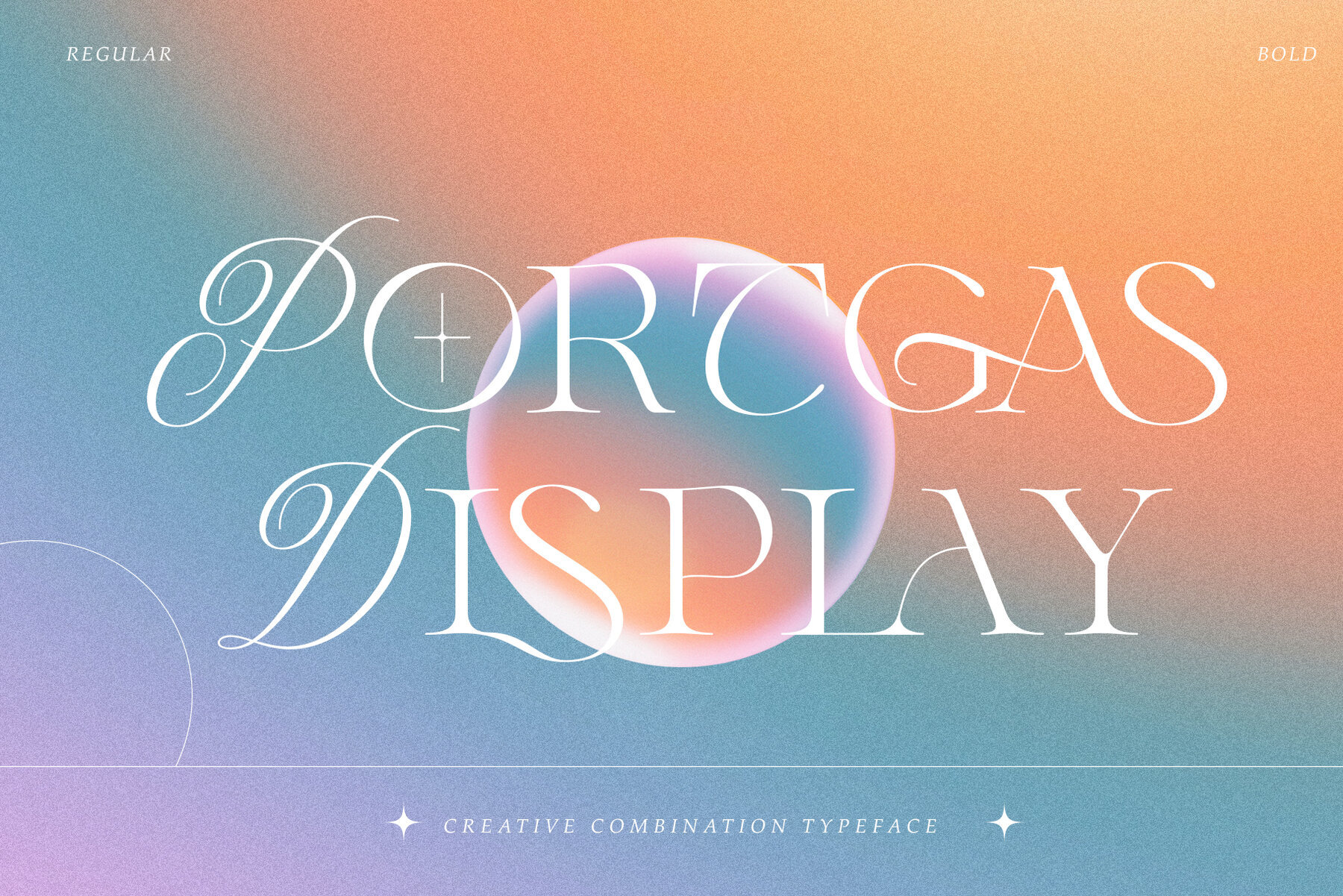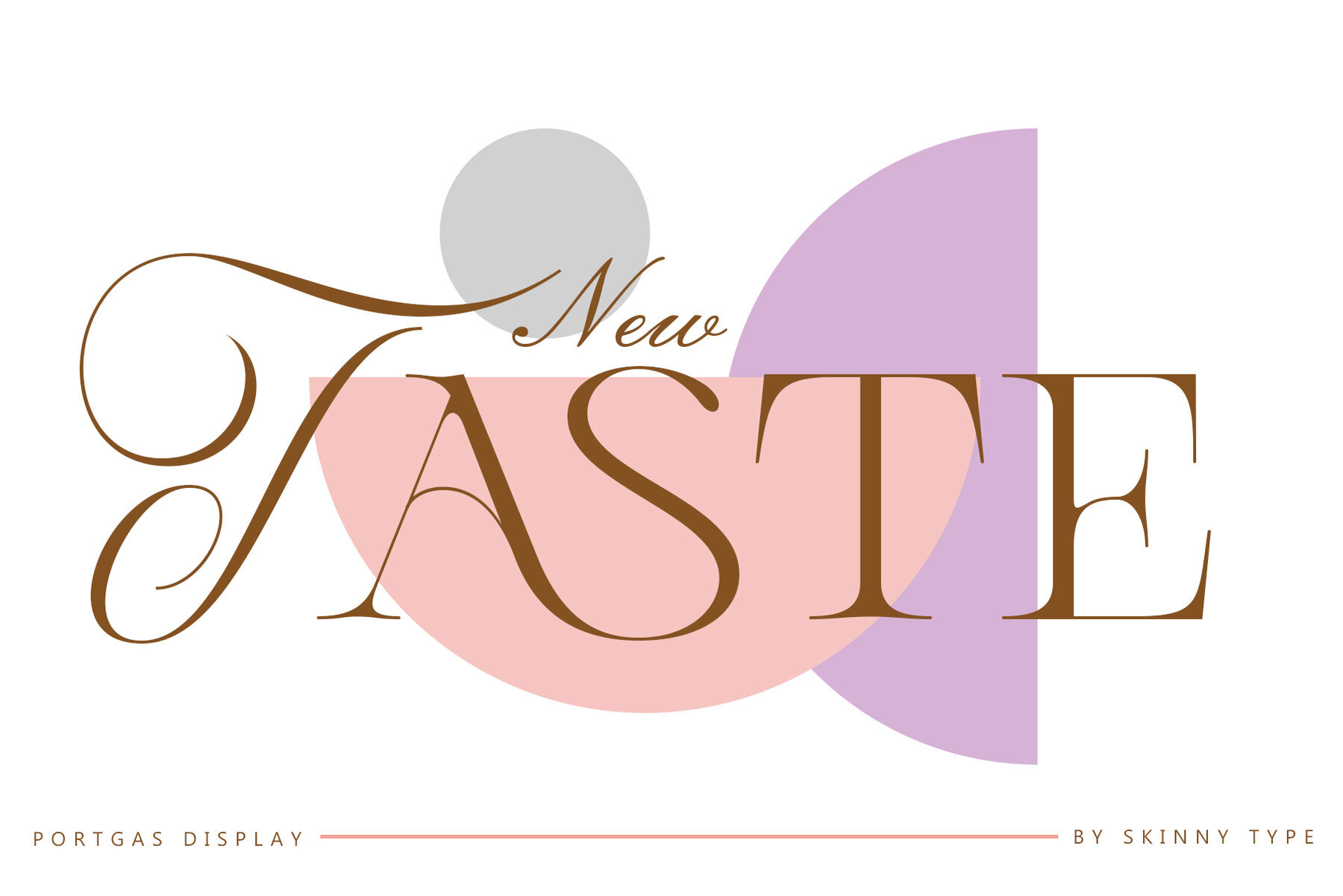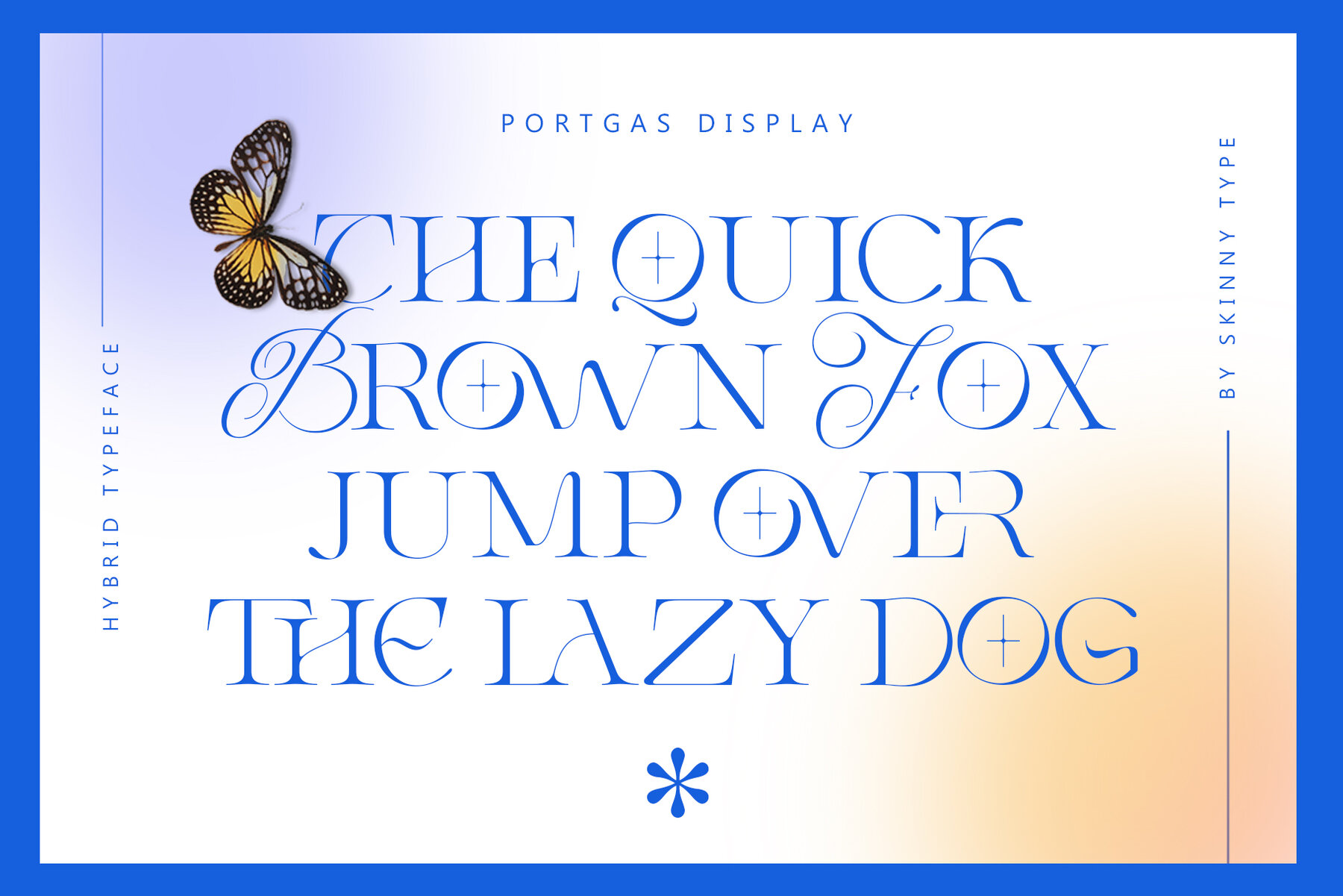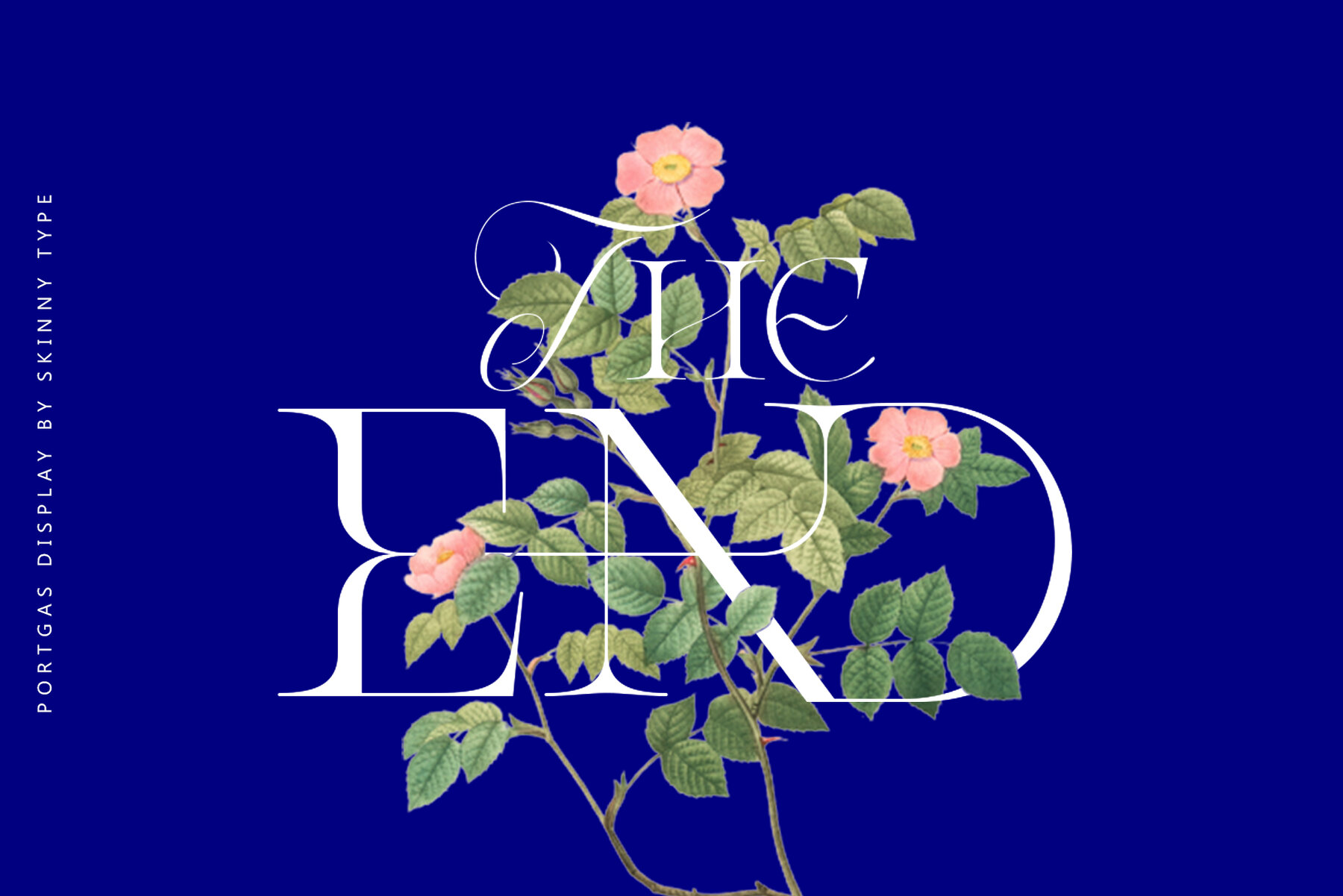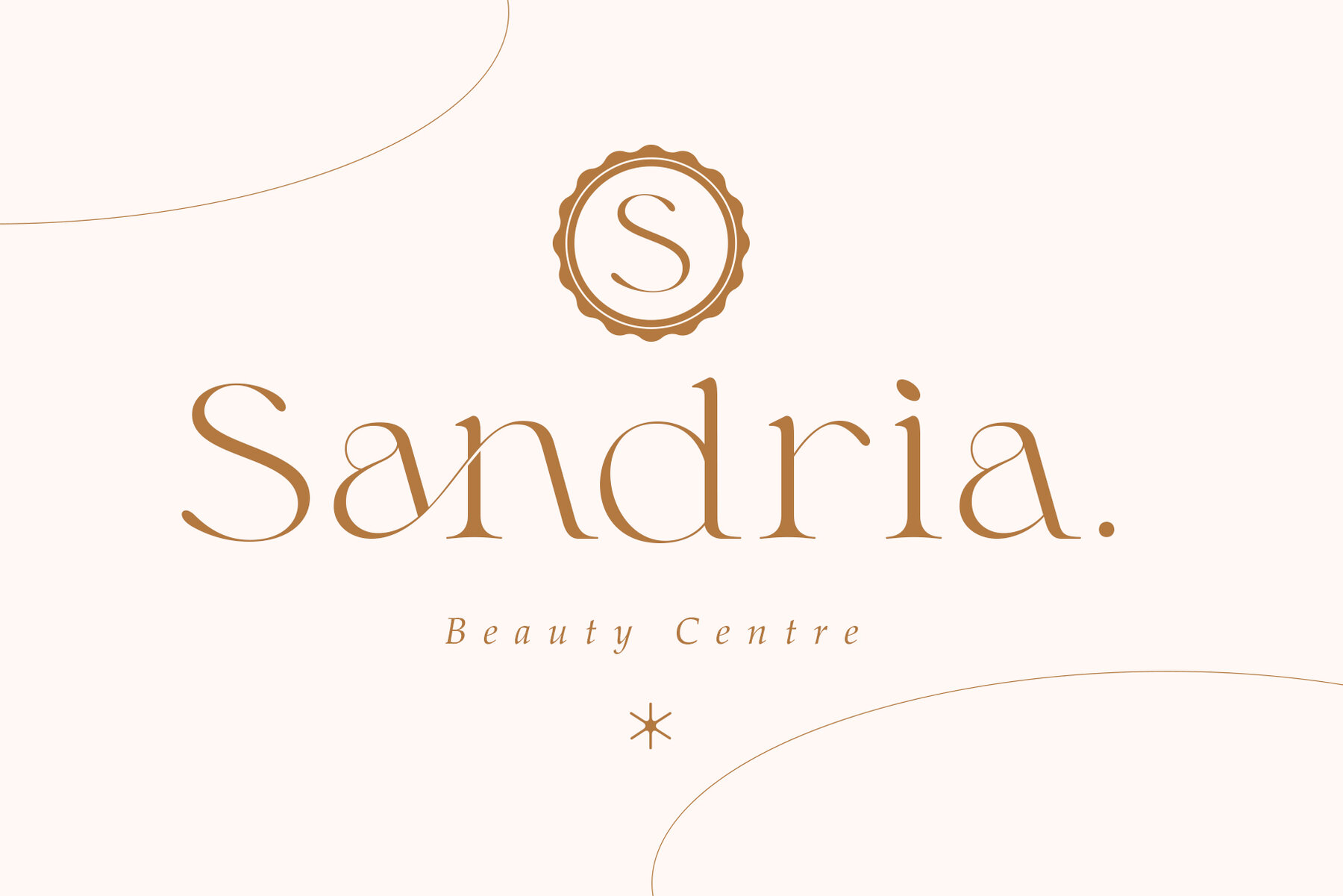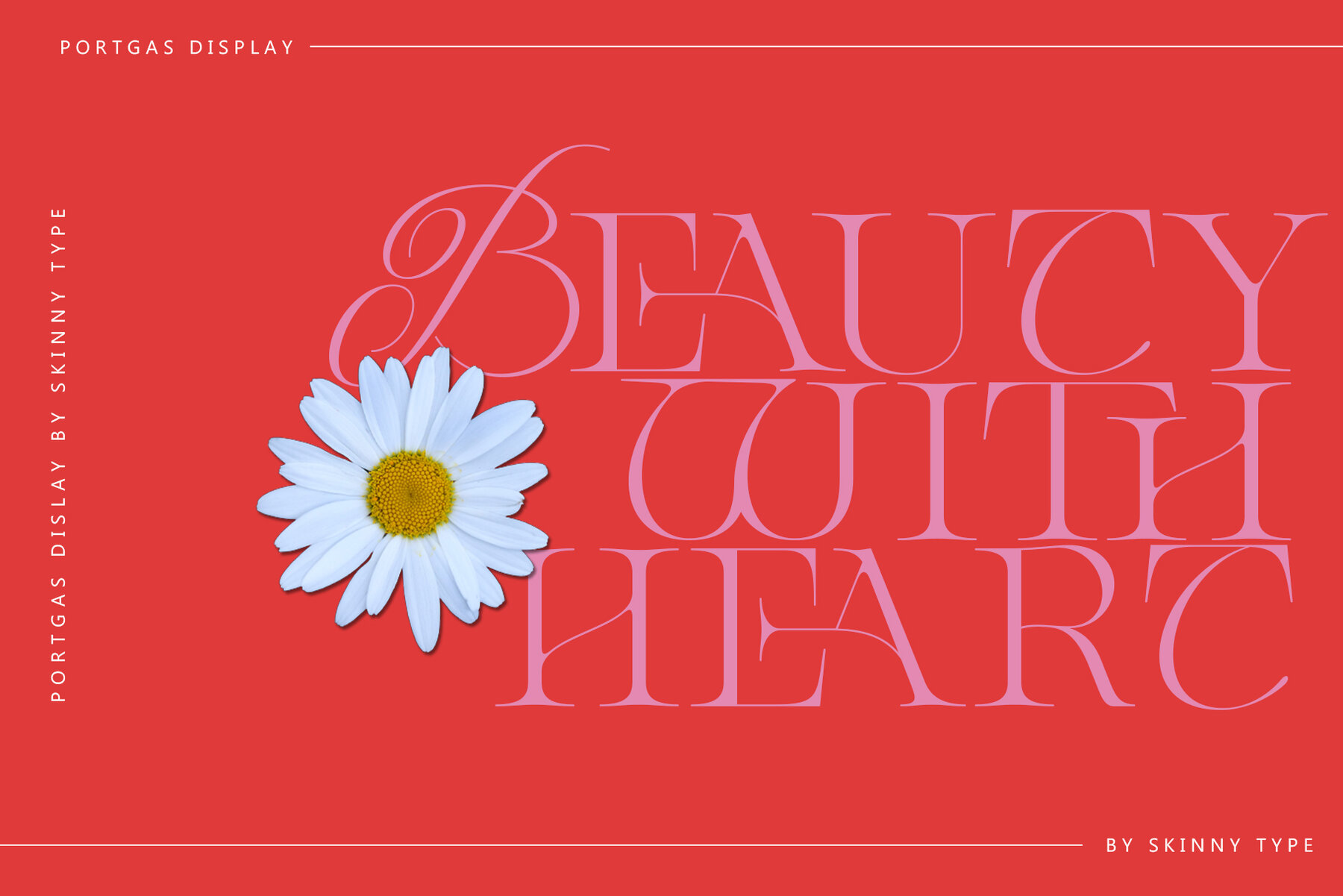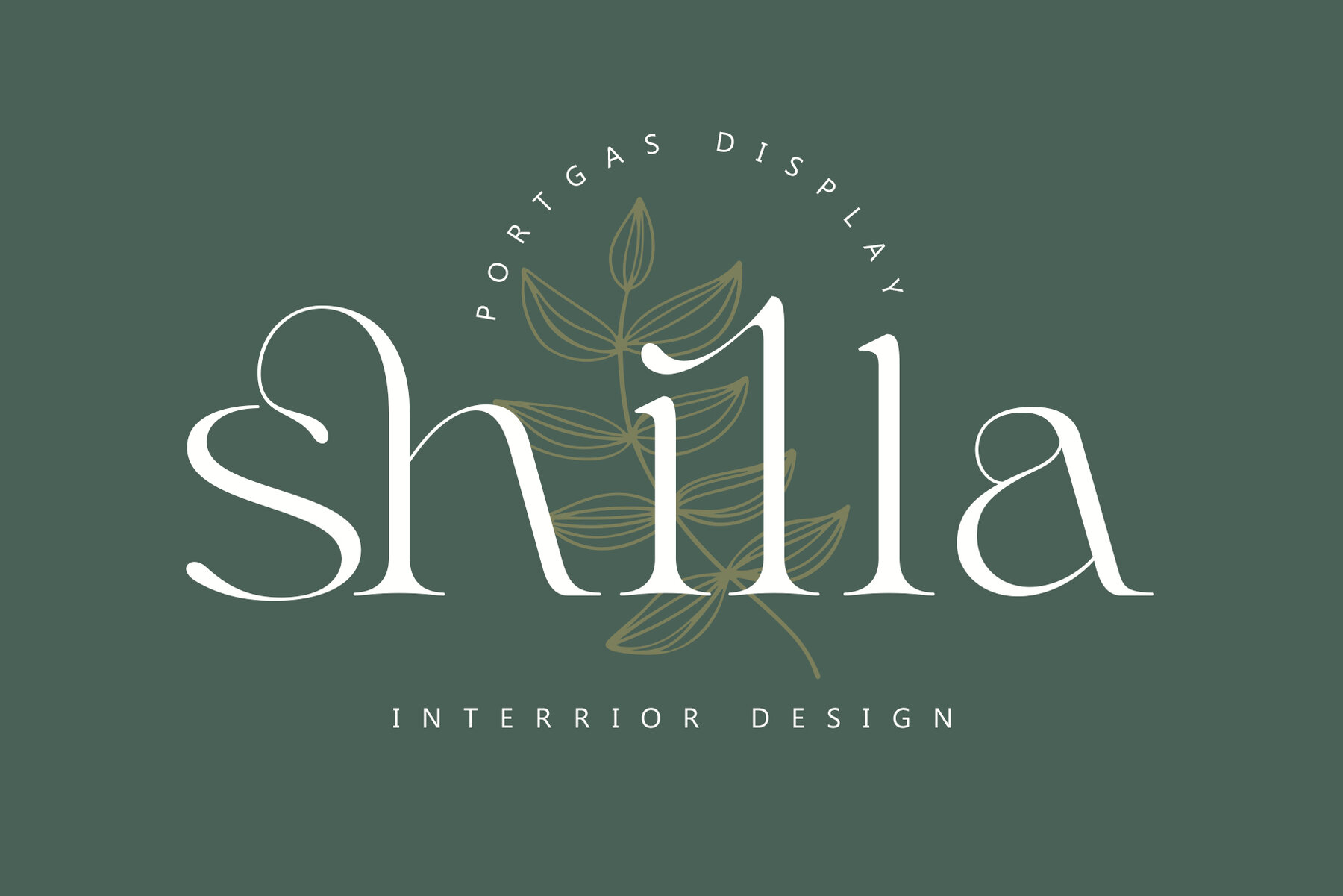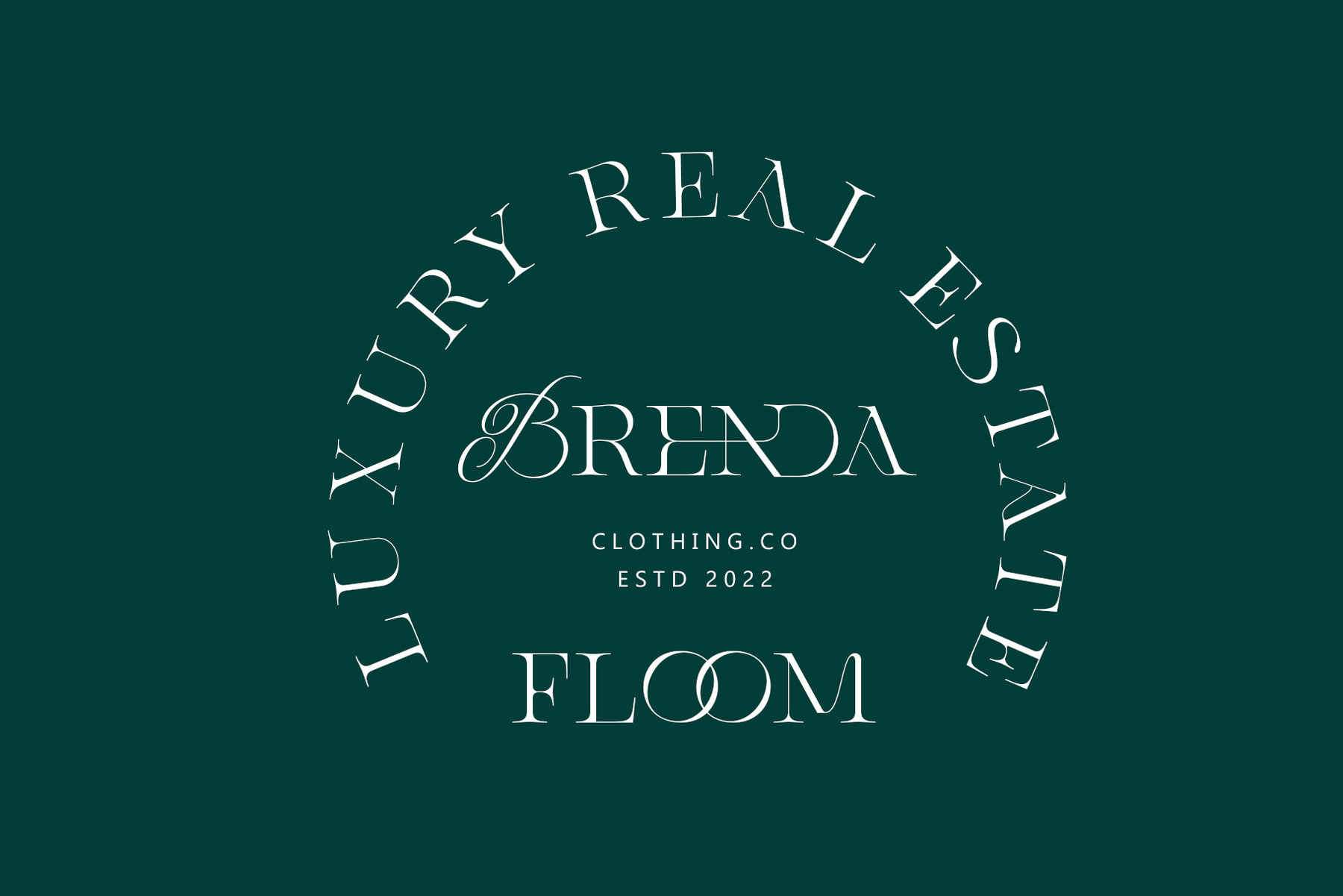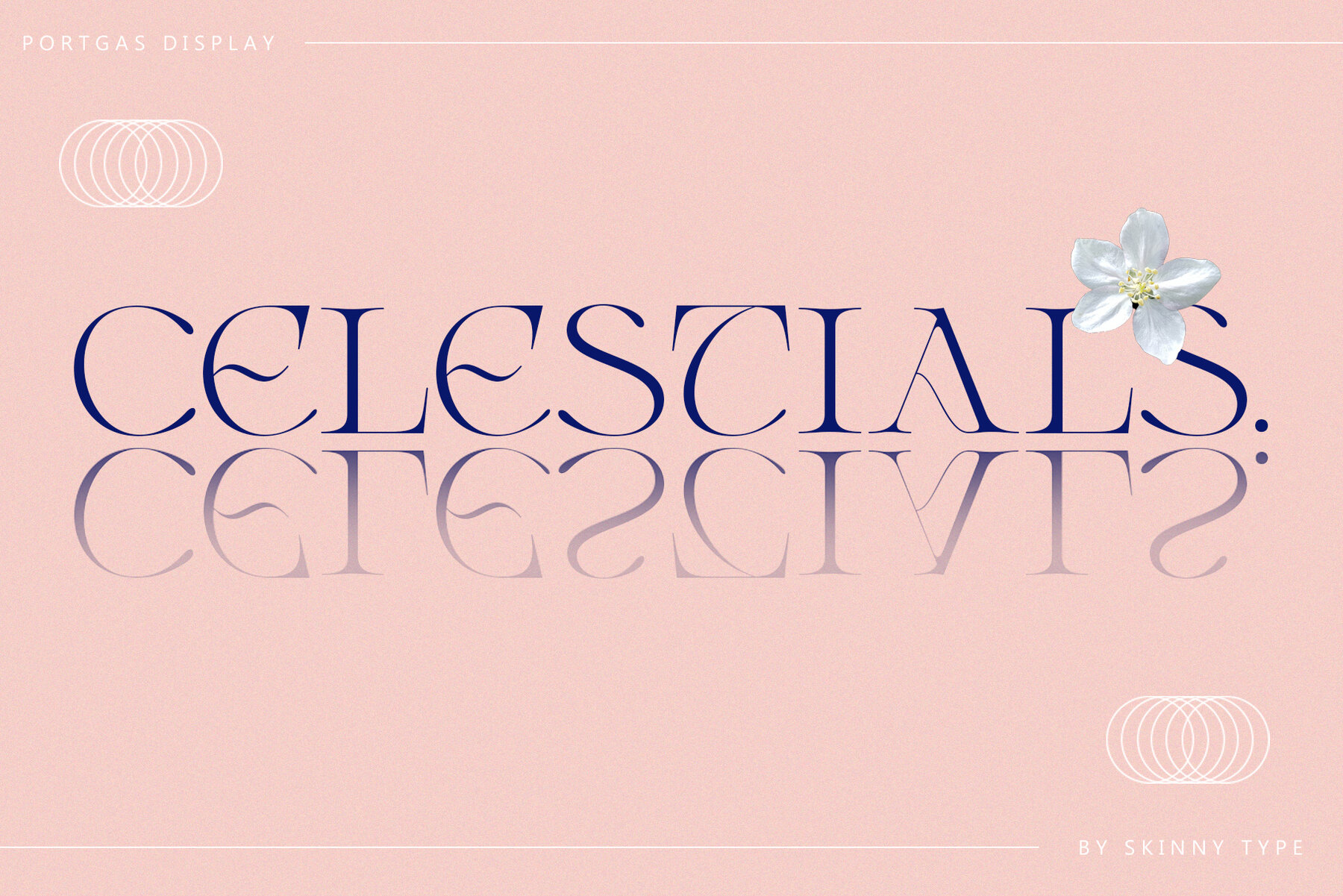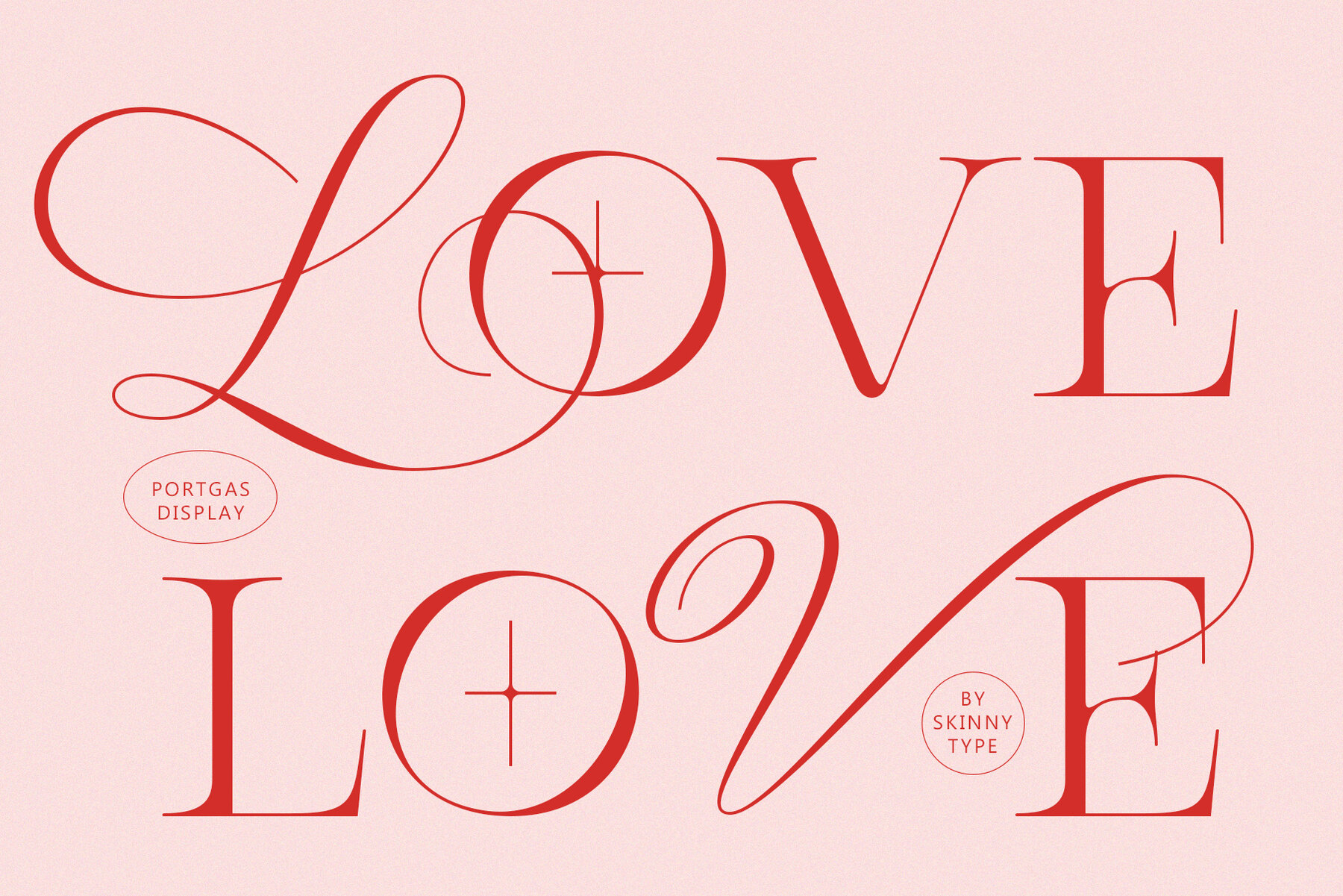
Portgas Display Font
Portgas Display is a beautiful and inspiring mix of classic calligraphy and modern serif based on a minimal and simplistic approach to elegance. The inspiration came from the fashion magazines. Its thick-thin, serif strokes express the modernity of the fashion industry. This typeface includes special uppercase letters and access to your OpenType features, alternate glyphs and more than 60 ligatures. Portgas Display is made mainly for headlines, titles, and other short texts and is well-suited for advertising, vintage mood board, branding, logotypes, packaging, titles, editorial design and modern and vintage design. Portgas Display is fully unicode mapped. Includes: